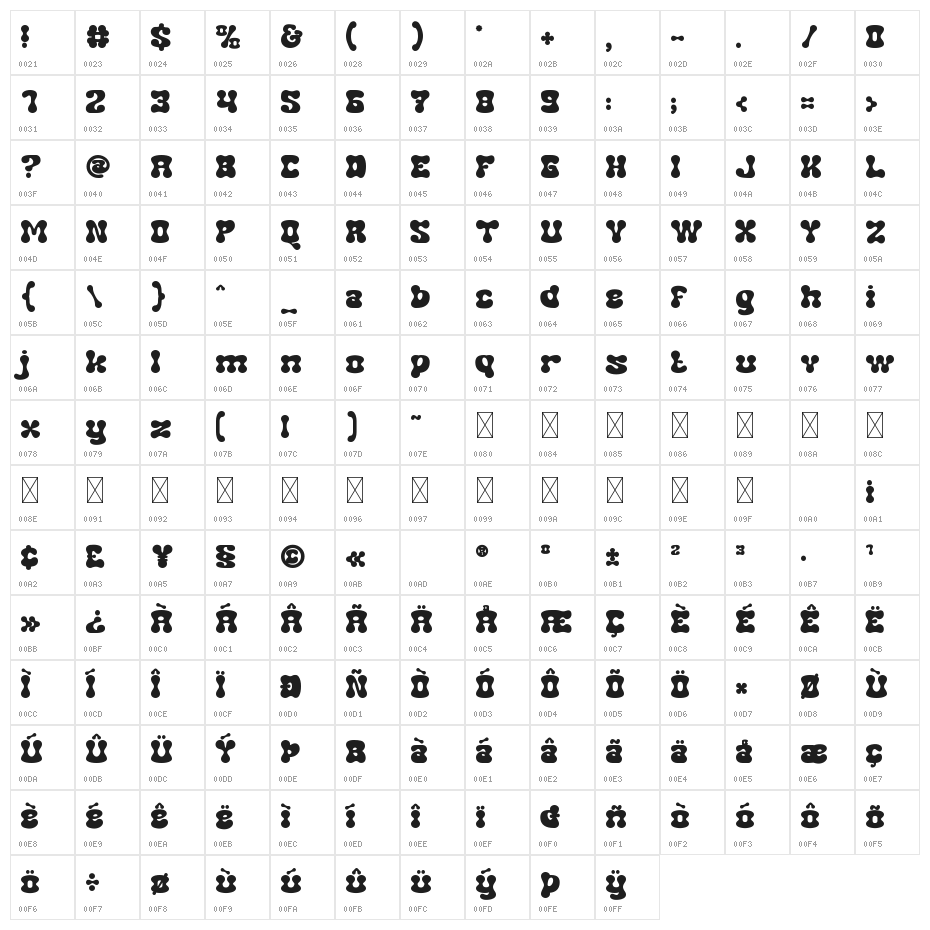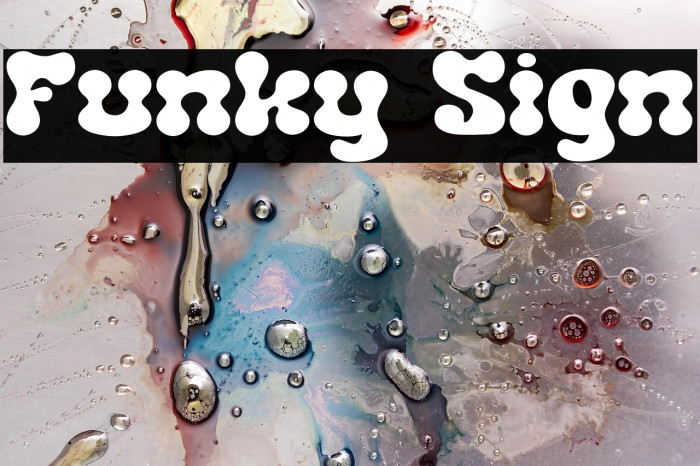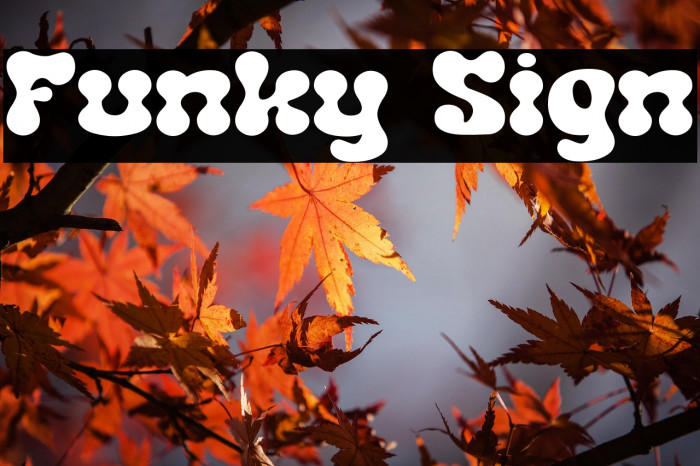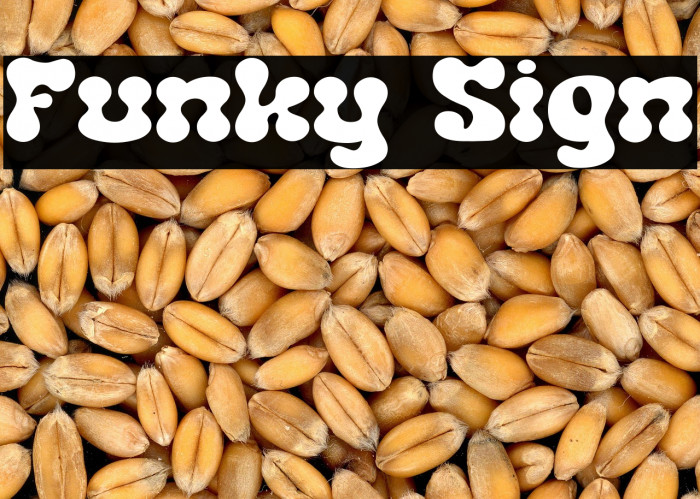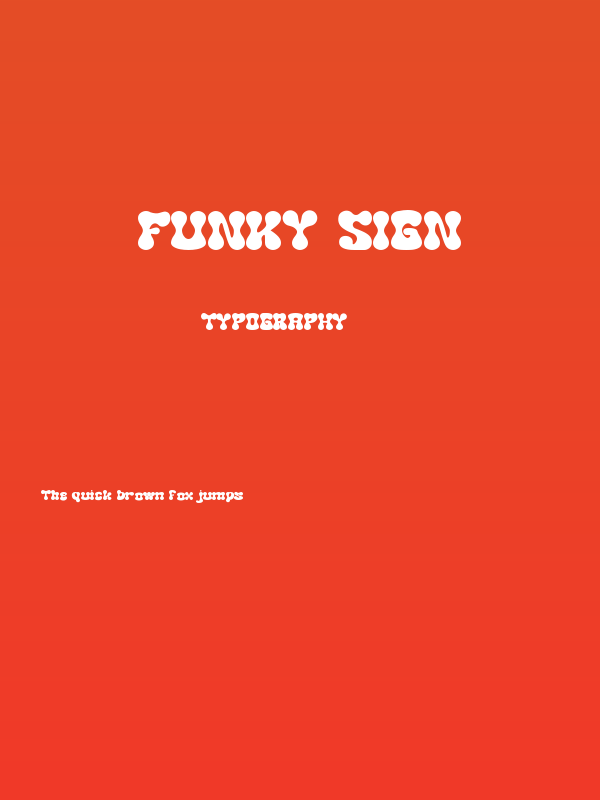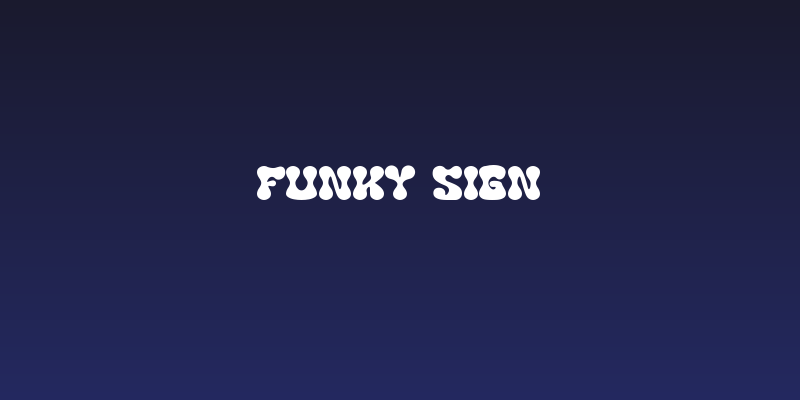
Funky Sign Font
Funky Sign Description
This font features a playful and bold design with rounded, bubbly characters that convey a sense of fun and creativity. The letters have a consistent thickness, creating a uniform appearance that enhances readability despite its decorative style. The exaggerated curves and soft edges give it a whimsical and approachable feel, making it ideal for projects that require a touch of personality and flair. The font maintains a consistent weight across all characters, ensuring a cohesive look. Its unique style is perfect for capturing attention and adding a lively element to any design.
Overall StylePlayful, Whimsical
Use CaseHeadlines, Logos, Posters
Proposed ProjectsIdeal for children's books, playful branding, party invitations, and eye-catching posters.